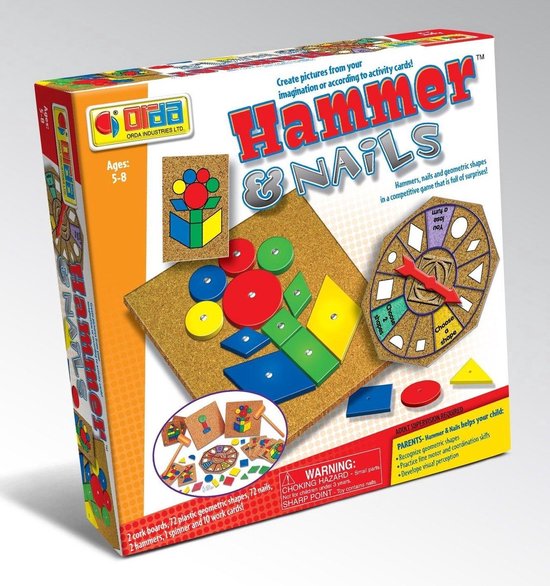
• A font based on the ORDA logo (no, not the ORDA from whatever that series is, or those other ORDAS. I mean the ORDA that makes toys and stuff).
Said logo (it's on the top left corner of the front of the box):